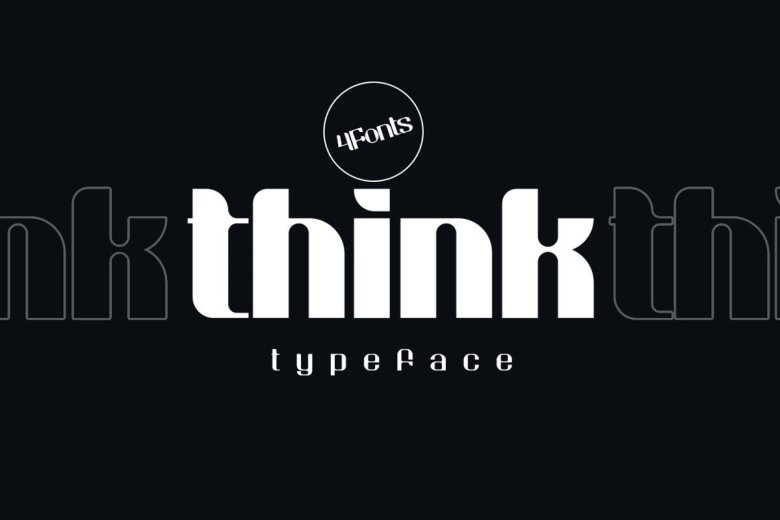
Think Font is a modern solid and expanded sans serif display typeface. It has a distinctly smart feel, strongly bring the message of your design projects.Think Font is perfect for branding, creating display images for social media, making stand out quotes images and so much more.